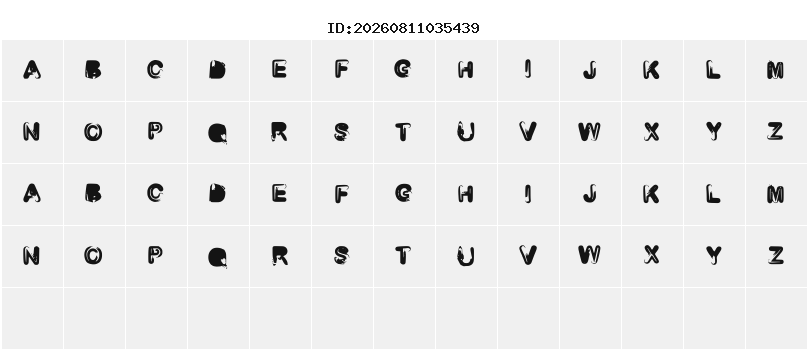
• Font Name: RoundedBrush
• Full Font Name: RoundedBrush
• PostScript Name: RoundedBrush
About RoundedBrush.ttf
RoundedBrush.ttf is a modern, elegant sans-serif font designed for ultimate readability and visual harmony. Perfect for branding, headlines, web design, and print materials.